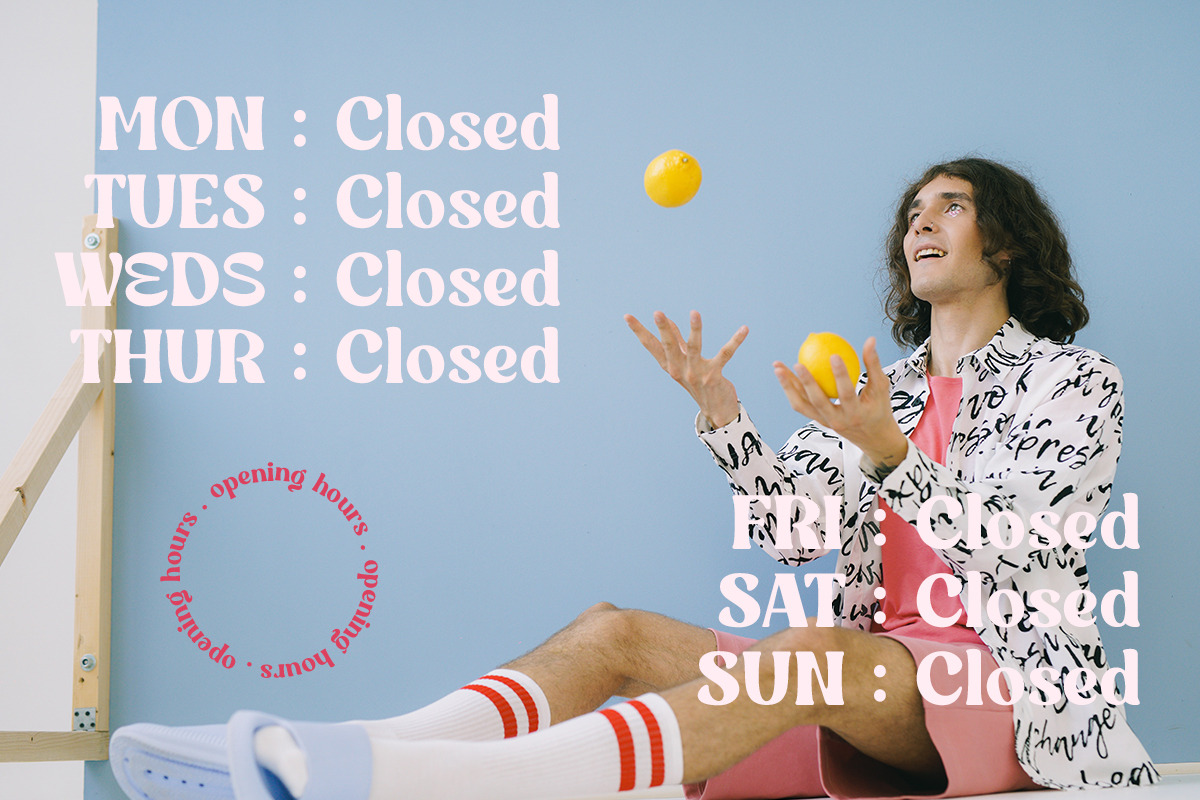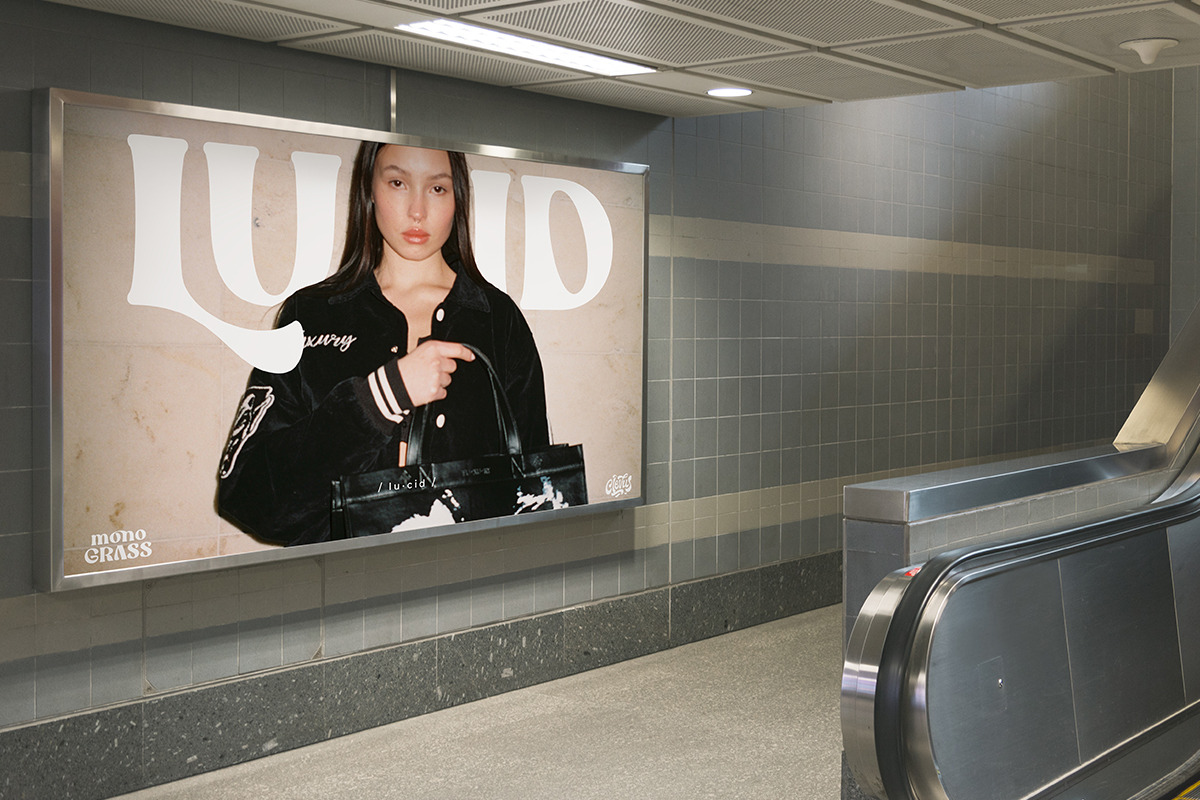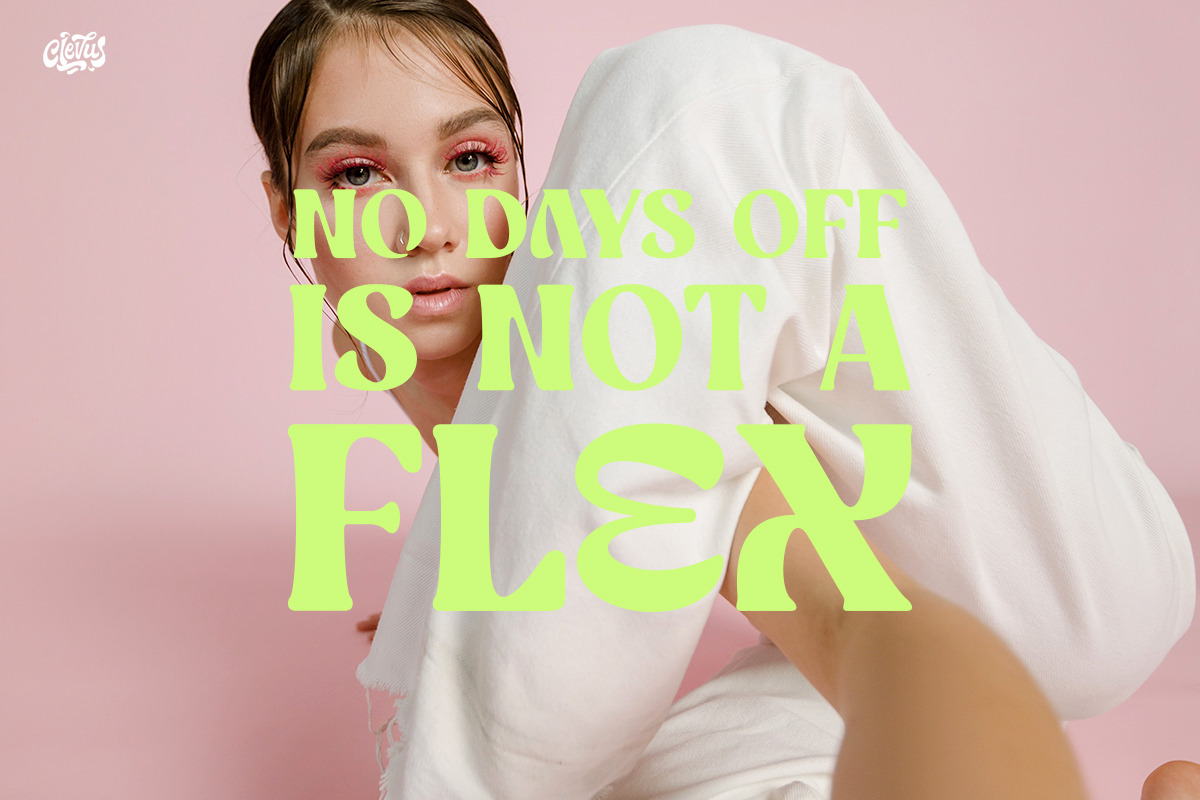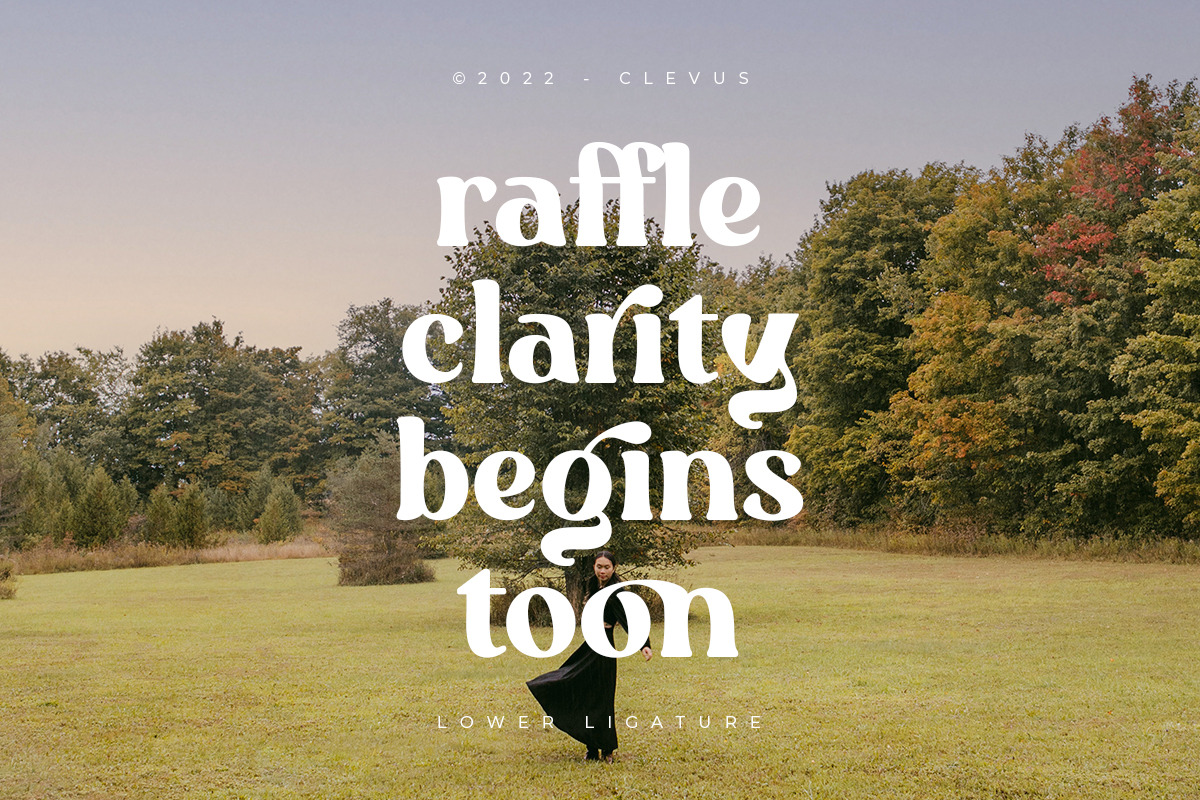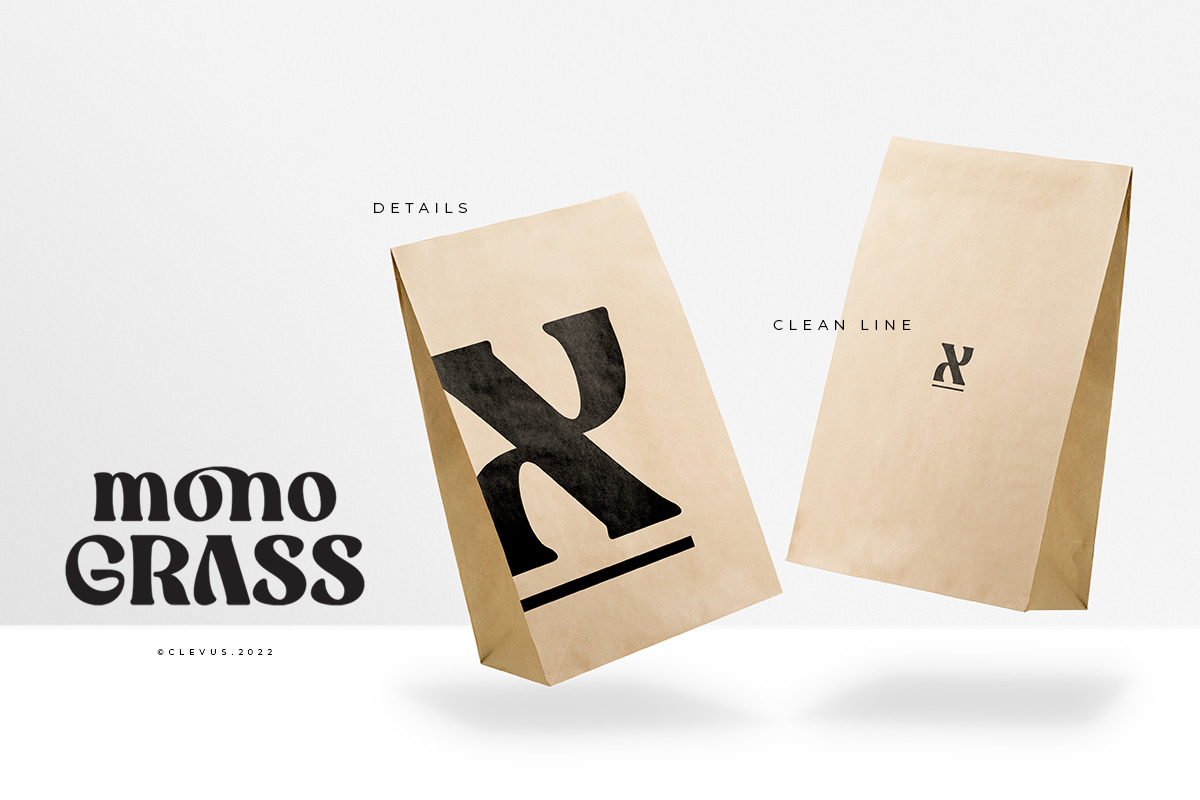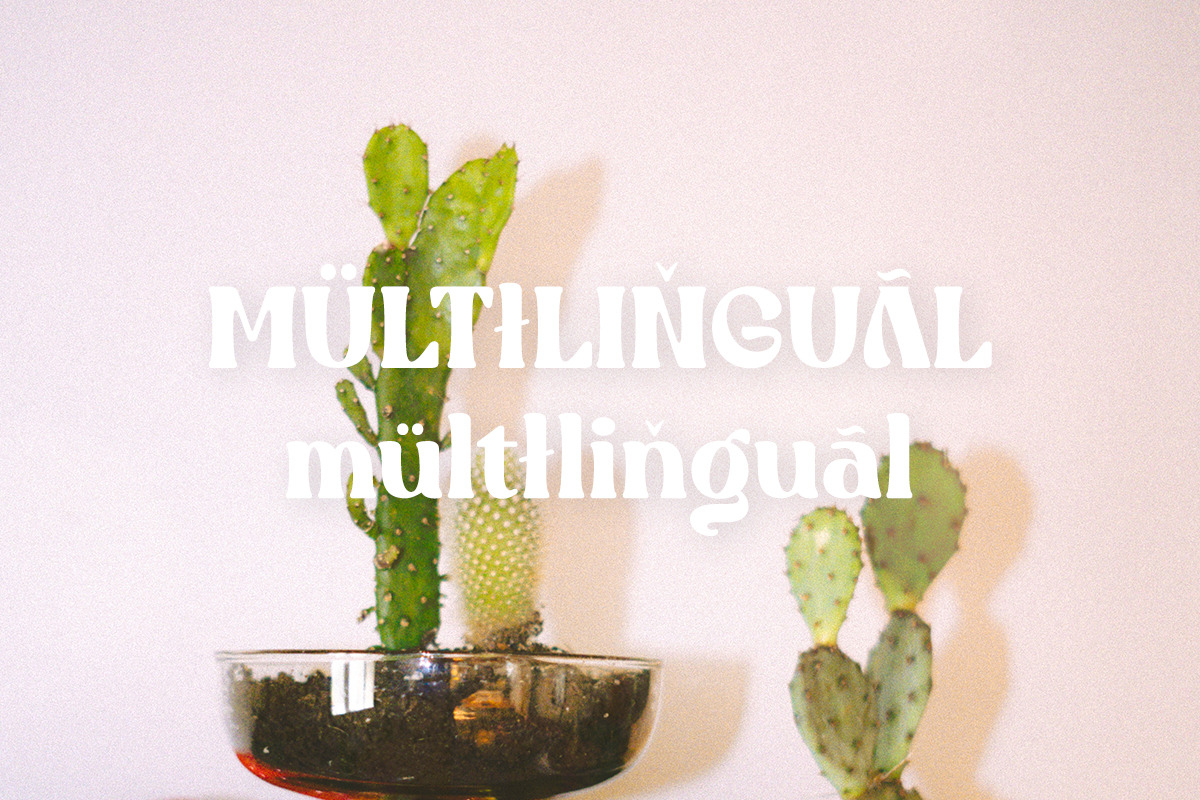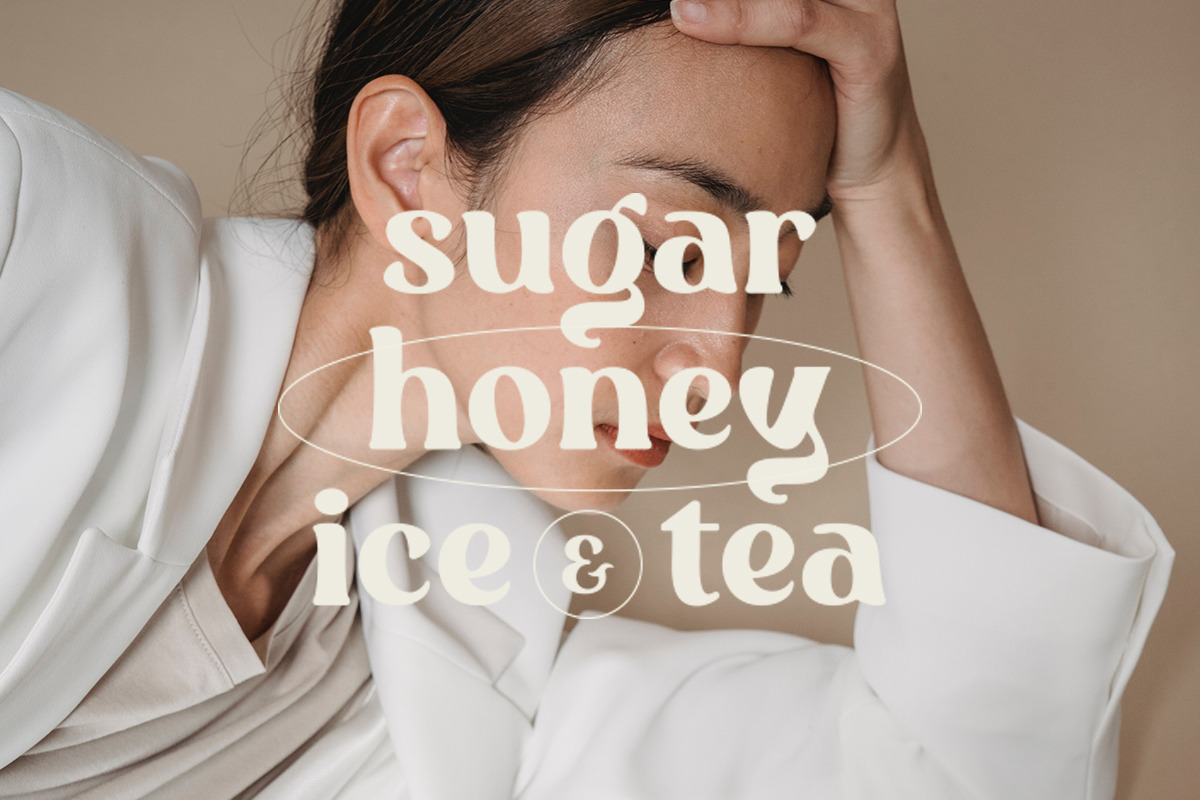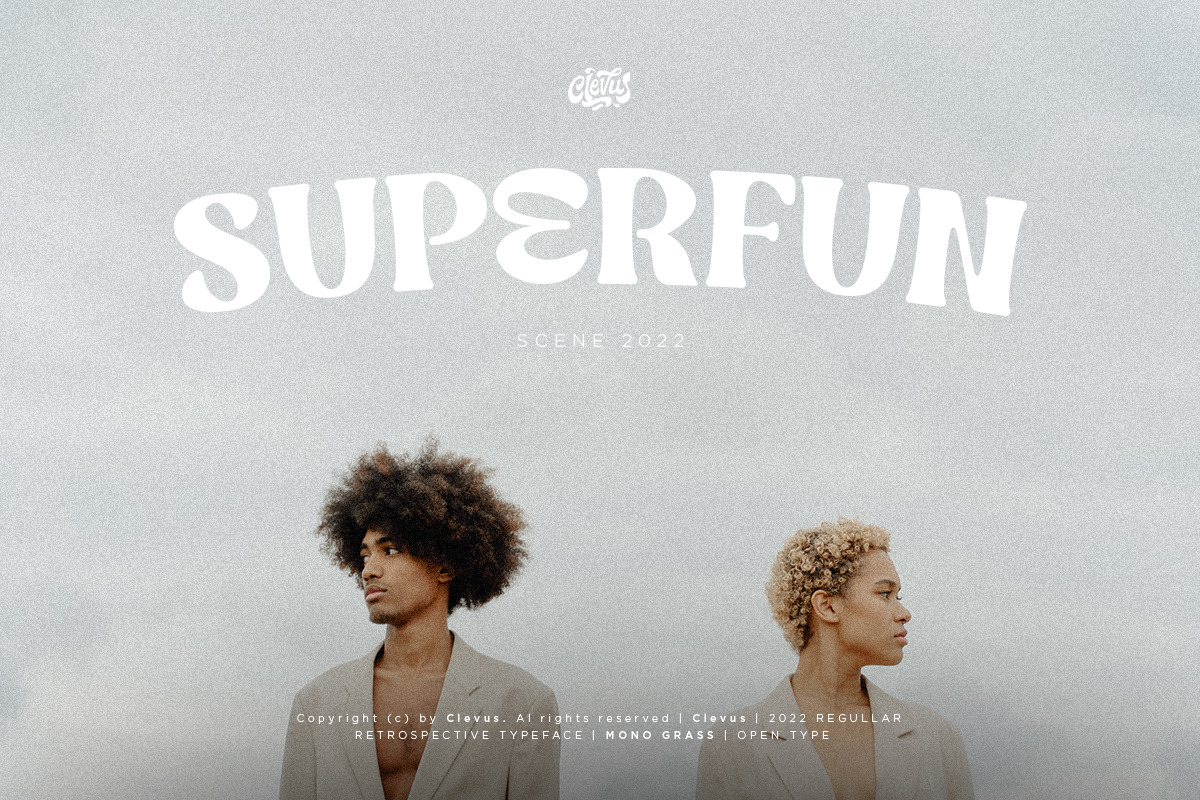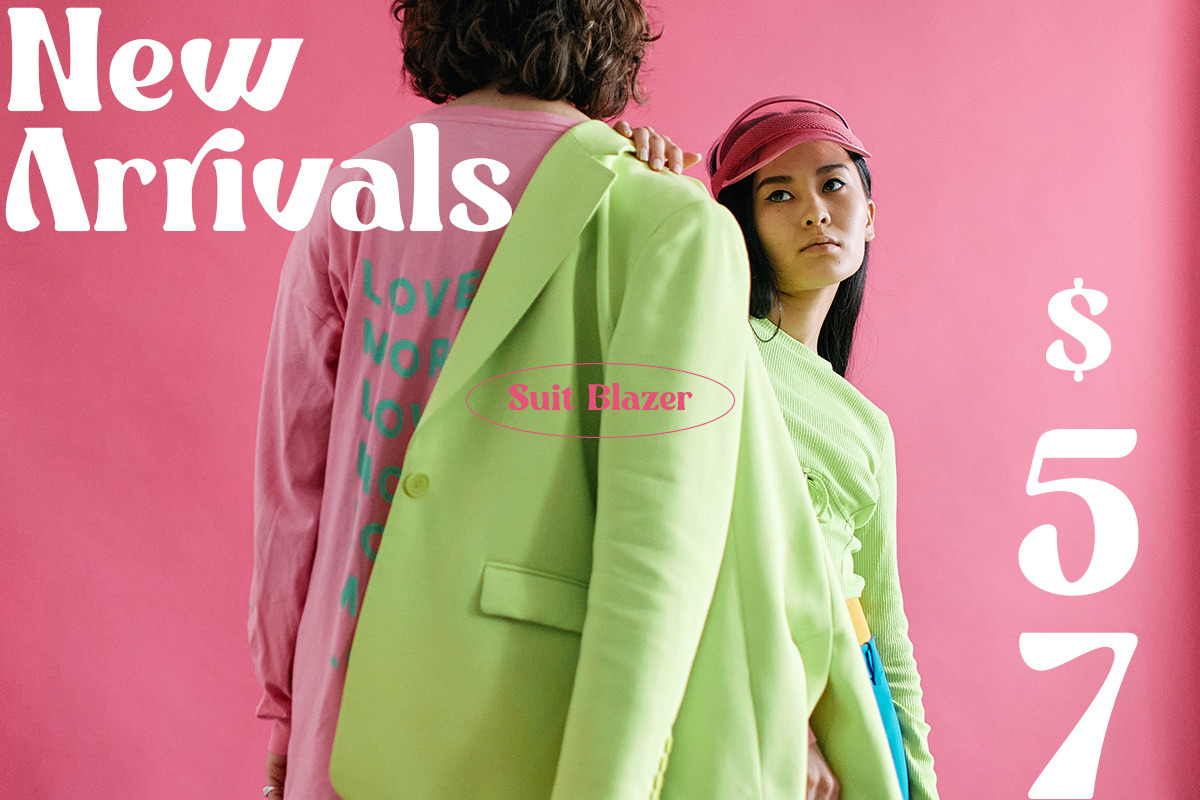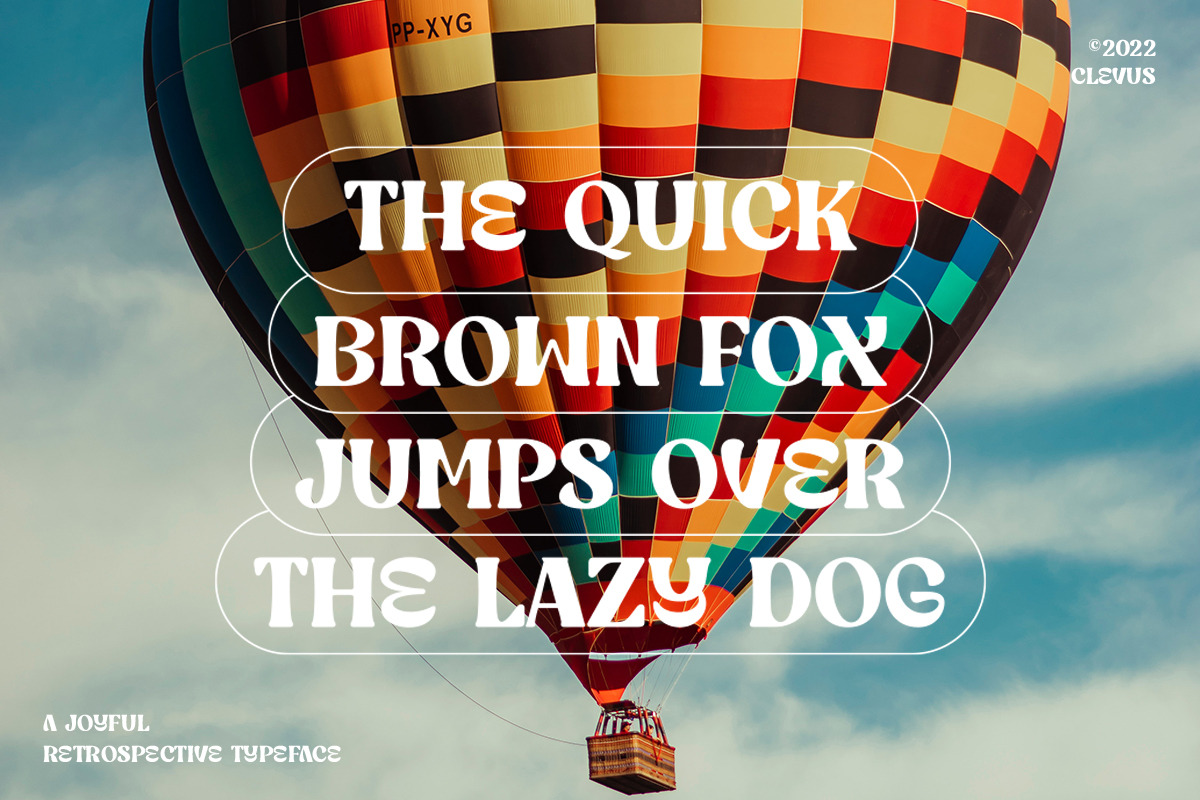
Mono Grass | Joyful Display
Proudly present Mono Grass Typeface that makes us feel nostalgic! It brings back the 60s to 70s vibe with a joyful and retro look, with a uniquely crafted touch to each letter.
Comes with alternatives and ligatures, and helps to create stunning magazine imagery, quotes, posts, blog posts, branding projects, logo, poster and much more.